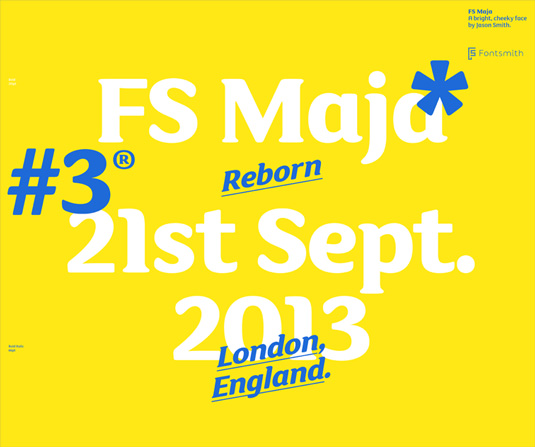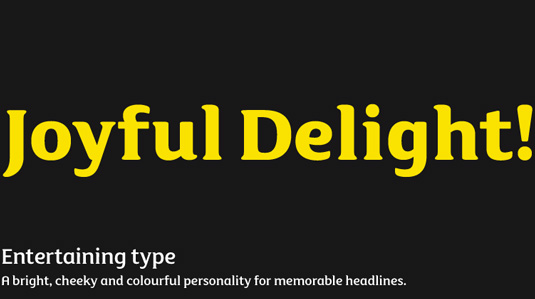
Font of the day: FS Maja
Every day we showcase the best fonts on the web. Today it's FS Maja by Jason Smith.
FS Maja by Jason Smith
Today's font of choice is FS Maja by designer, Jason Smith. Available from the Fontsmith, the type is described thus: "FS Maja is a bright and cheeky face. Bubbly, punchy, and entertaining. Distinctively warm with soft rounded shapes. FS Maja is a display and text font that’s young, fresh and beautifully random."